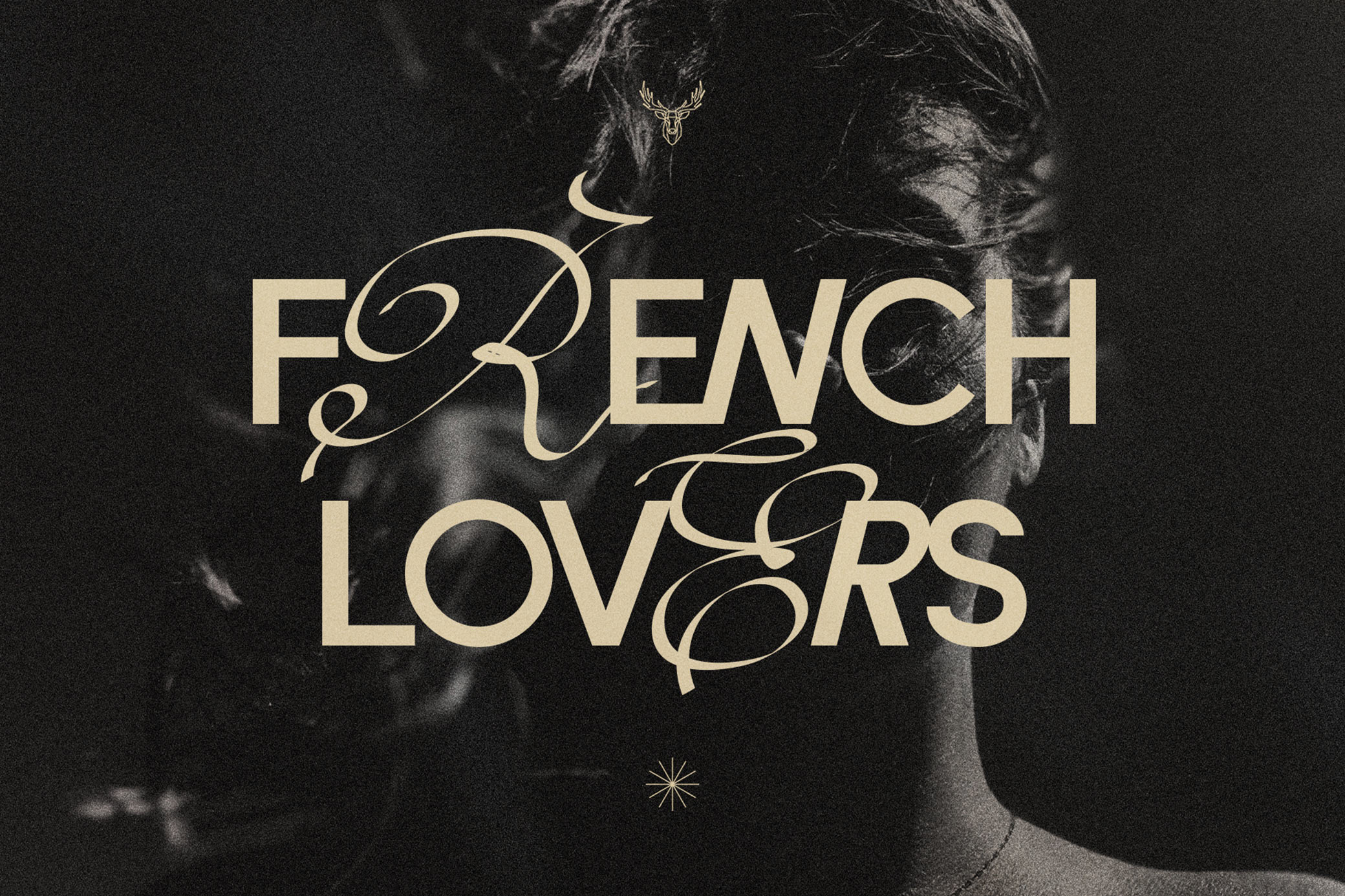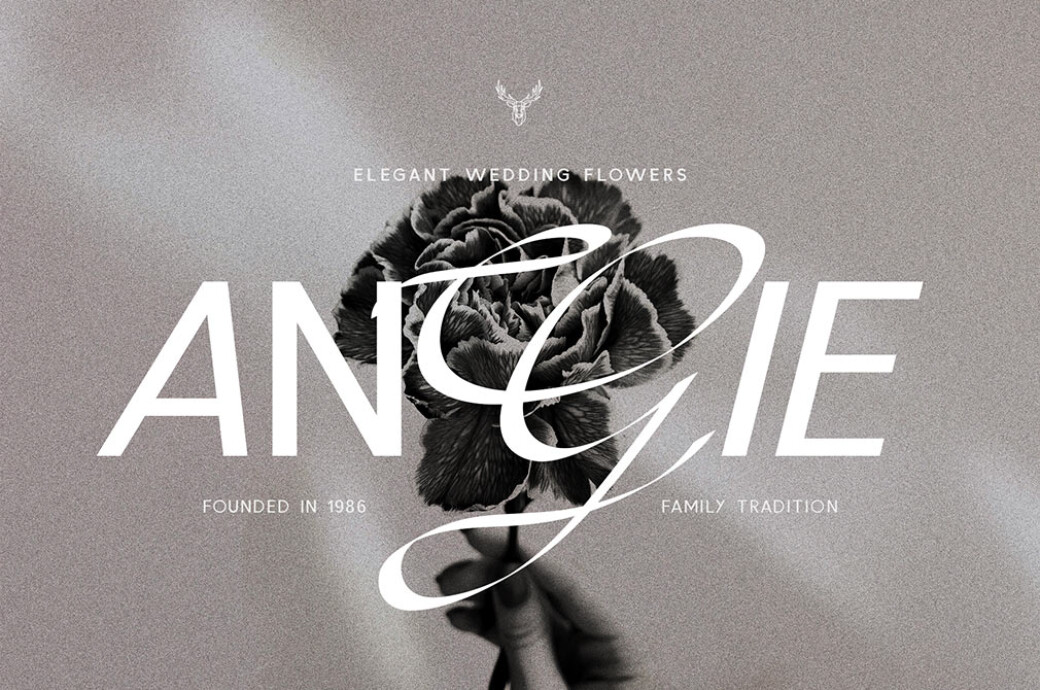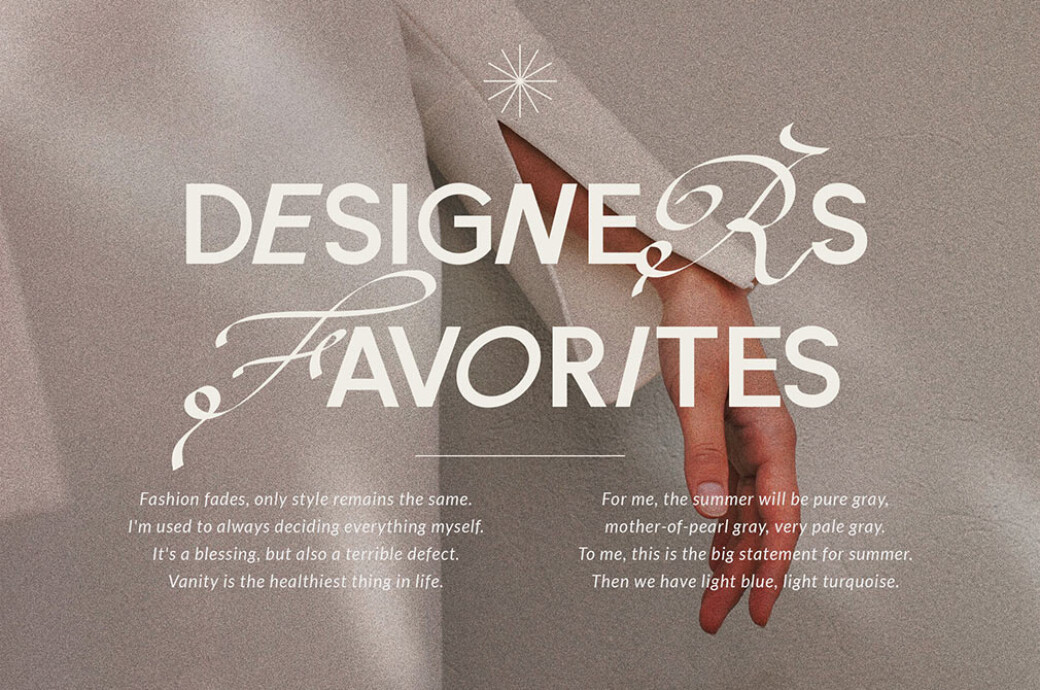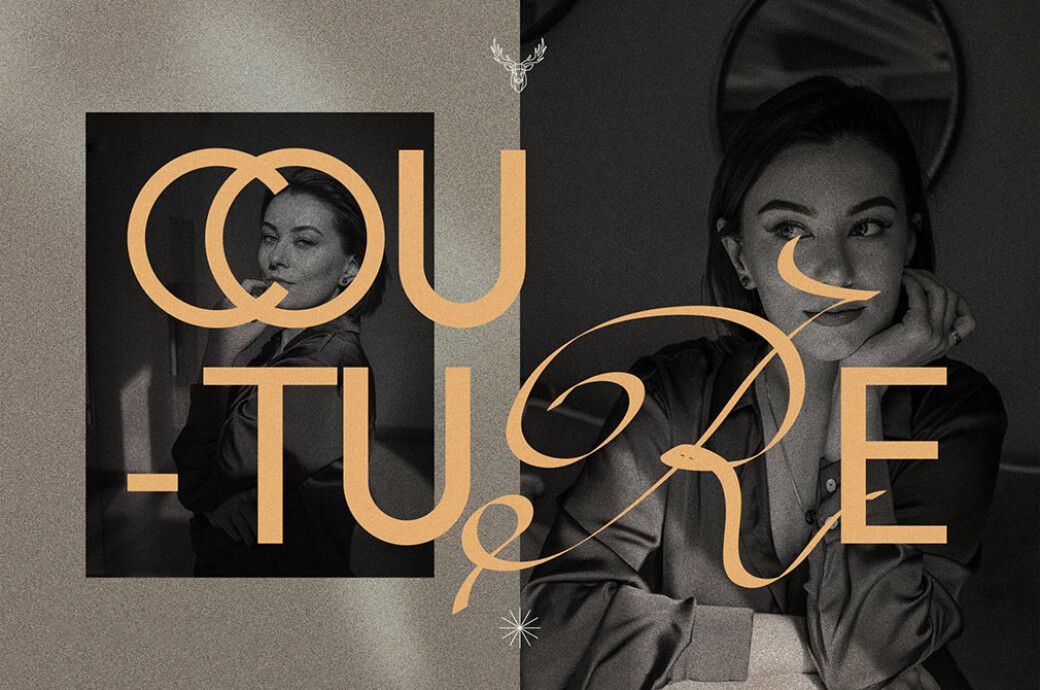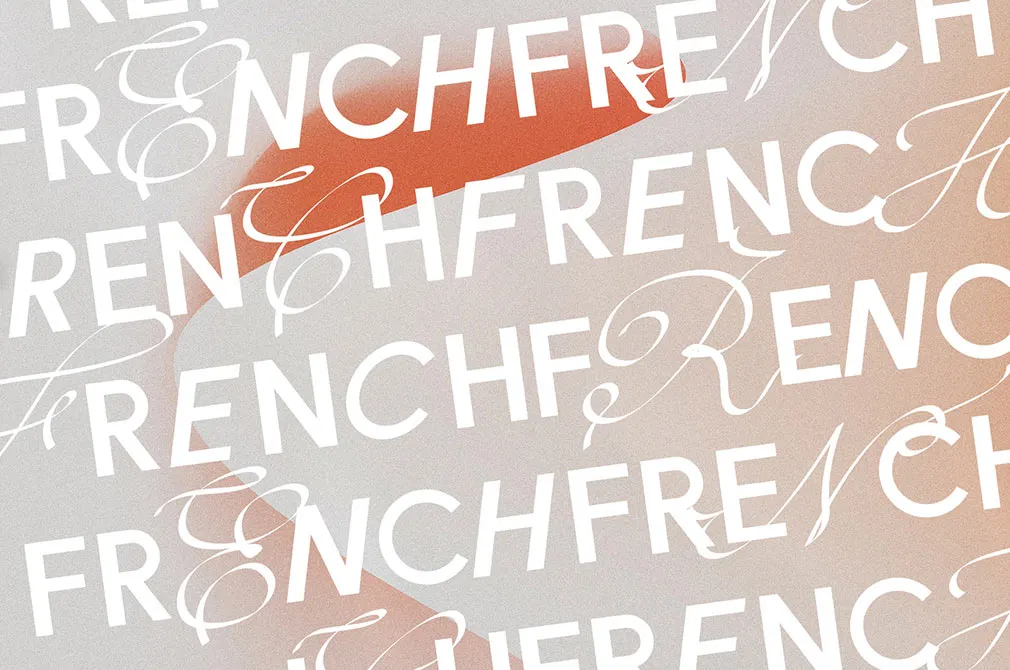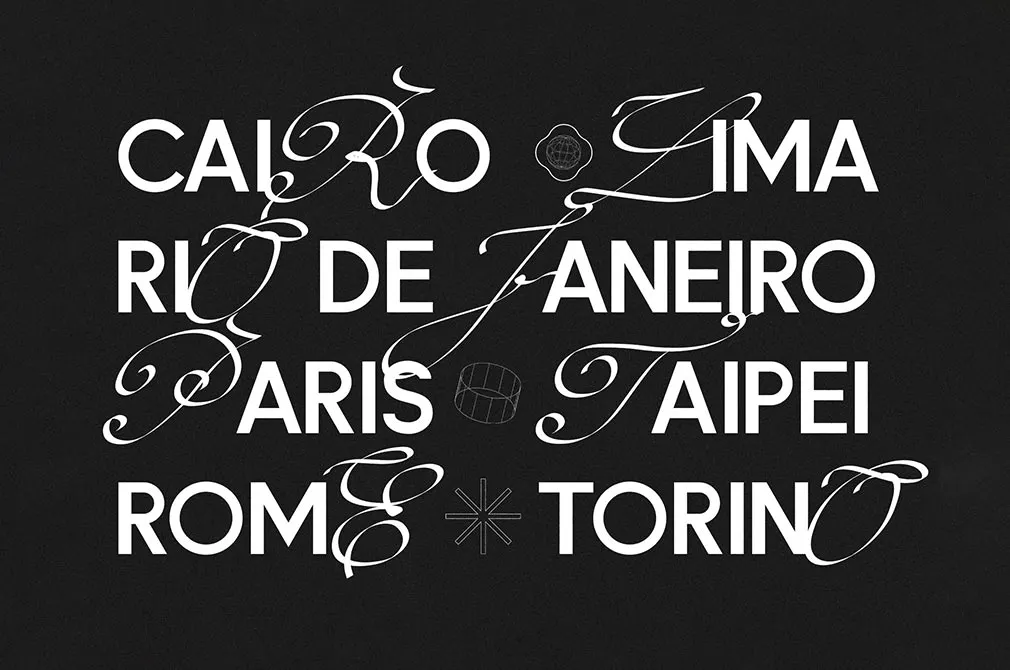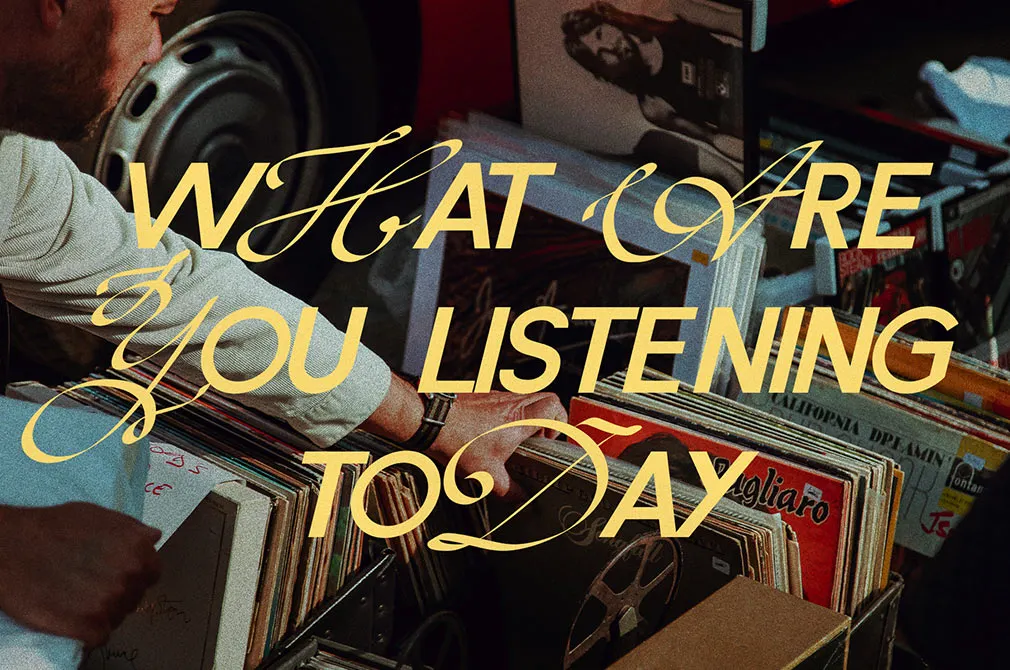
French Lovers: Sans & Script Duo
French Lovers - Sans & Script Duo
The sans and script font combination is a timeless classic, yet we can't get enough of it! So meet some of its classiest variations bringing together reserved and elegant vibes.French Lovers is a modern sans & script font duo which actually contains 3 fonts, but with all the alternate options and weights, you will have 18 different versions able to cover all your strikes of inspiration. Just think of how different your compositions, branding, packaging, and prints can be with a single font pack! Be sure to find the full language support, punctuation, numerals, and detailed instructions on how to use alternate letters in most apps on your computer, including in Canva.